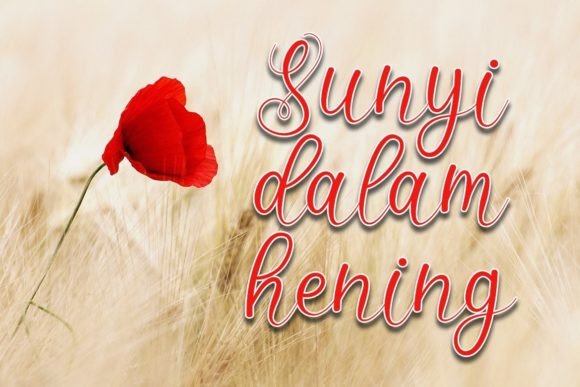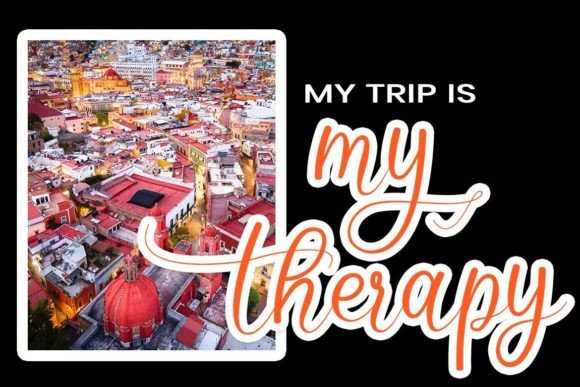
Ematris Font
About Ematris Font
**Ematris** is a contemporary script font meticulously crafted with beautiful curves that exude modernity and style. Its elegant design makes it a versatile choice suitable for a variety of purposes, including quotes, advertisements, weddings, and more.
One of the defining characteristics of Ematris is its smooth and flowing curves. The font’s well-crafted letterforms create a harmonious and balanced appearance, making it visually appealing and easy to read. The modern and stylish vibe of Ematris adds a touch of sophistication to any project, ensuring that your designs stand out with elegance.
Ematris’s versatility allows it to be applied to a range of creative contexts. In quotes and inspirational messages, the font enhances the impact of the text, adding a sense of grace and refinement. Its modern script style can elevate mundane quotes into visually striking and motivational graphics, capturing the attention of the audience.
In advertisements, Ematris can be used to create eye-catching headlines and taglines. Its contemporary look adds a trendy and fashionable touch, making your advertising materials visually engaging and appealing to a modern audience. Whether used in print ads, digital banners, or social media promotions, Ematris makes a statement with its elegant curves and modern aesthetics.
Ematris is also well-suited for wedding-related designs. From invitations to signage and wedding stationery, the font brings a sense of romance and sophistication to matrimonial themes. Its graceful letterforms add a touch of elegance to wedding invitations, creating a timeless and beautiful impression for couples and their guests.
In summary, Ematris is a modern script font designed to enhance your projects with its beautiful curves and contemporary style. Its versatility and elegance make it a valuable choice for a wide array of applications, allowing you to create visually appealing designs that leave a lasting impression. Whether used in quotes, advertisements, weddings, or other creative endeavors, Ematris adds a touch of modern sophistication to your typography compositions.